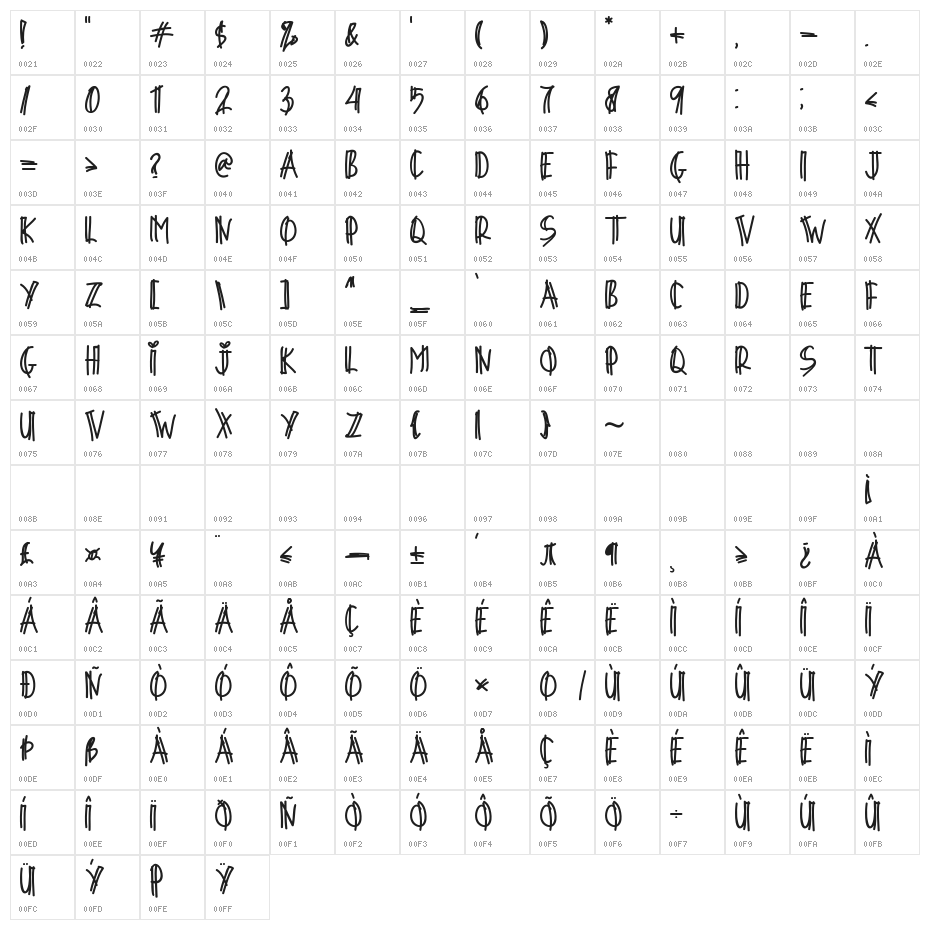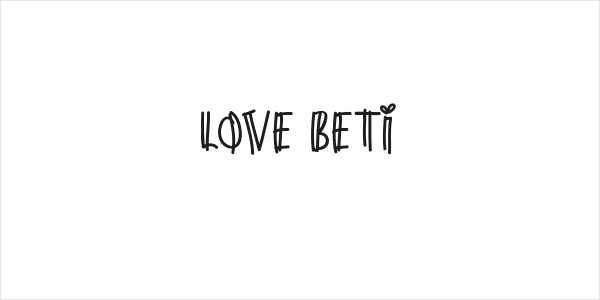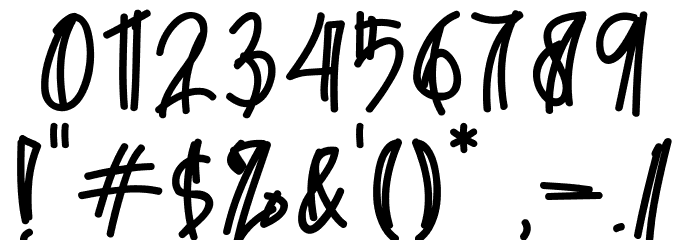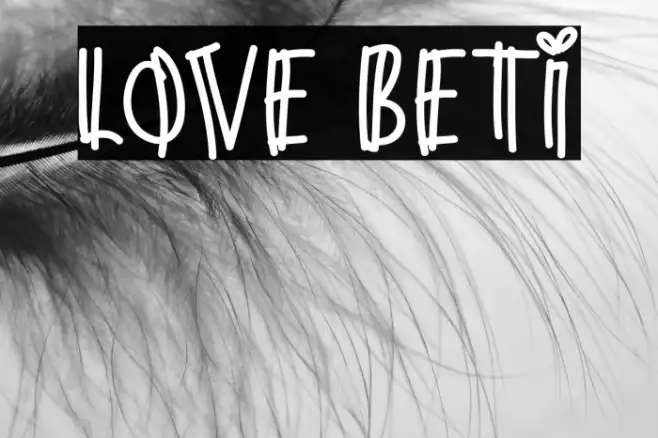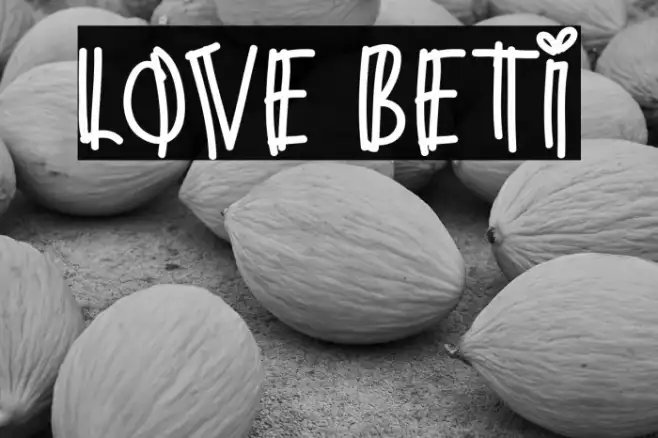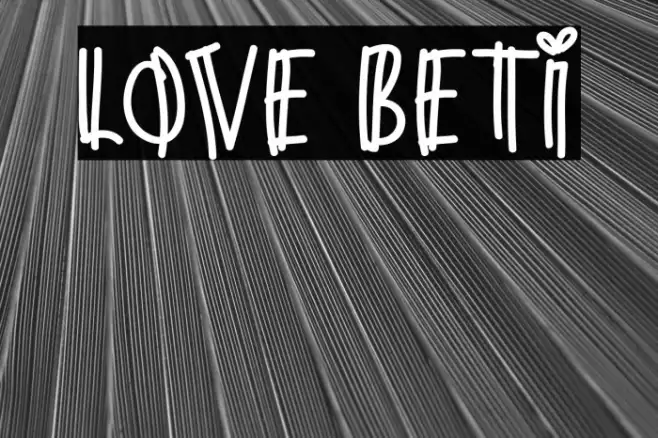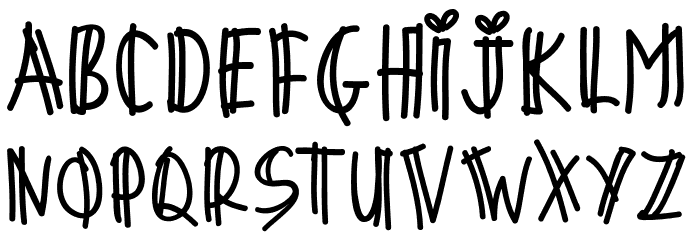
Love Beti Font
Love Beti Description
This playful and energetic font features a handwritten style that exudes a sense of fun and creativity. The characters are bold and slightly irregular, with a casual, informal appearance that makes them stand out. The uppercase and lowercase letters maintain a consistent style, with a slight slant that adds to the dynamic feel. The numbers and special characters are equally expressive, ensuring a cohesive look across all text. The font's unique charm is enhanced by its whimsical details, such as the heart-shaped dots on the 'i' and 'j'. This font is perfect for projects that require a personal touch, such as greeting cards, invitations, or playful branding.
| Proposed Projects | Ideal for greeting cards, invitations, playful branding, and creative projects. |